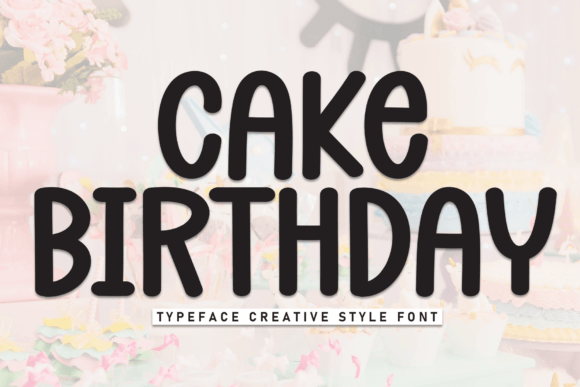
The Ultimate Guide to Cake Birthday Font: A Bold and Playful Display Font
I’ll never forget the time I was working on a birthday party invitation project for a client, and I just couldn’t find the right font to match the festive vibe. The client wanted something bold, fun, and celebratory, but everything I tried seemed either too bland or too over-the-top. That’s when I stumbled upon Cake Birthday, a font that instantly brought the party to my design. In this article, I’ll share my love for this amazing font, its features, and how to make the most of it in your designs.
My Honest Review of Cake Birthday Font
Cake Birthday is a bold, fun display font that’s perfect for making big statements. Here’s what I love about it:
- ✨ Thick and playful letters that give a happy and cheerful feel
- ✅ Perfect for birthday cards, party invitations, and festive designs
- 🎉 Great for headlines and titles that need to grab attention
- 👍 Easy to read and understand, even in large sizes
However, there are a few small quirks to keep in mind:
- 🤔 Limited use for body text due to its bold nature
- ⚠️ May not be suitable for formal or professional designs
- Experiment with OpenType features like ligatures and stylistic alternates to add more personality to your text
The Story Behind Cake Birthday Font
Cake Birthday was designed by a talented font creator who wanted to capture the essence of celebration in a font. Inspired by birthday parties and festive decorations, the designer crafted a font that’s both fun and functional. The result is a font that instantly adds a touch of joy to any design.
| What is Cake Birthday font best used for? | Cake Birthday is perfect for birthday cards, party invitations, and festive designs that need a bold and playful touch. |
| Is Cake Birthday font suitable for body text? | No, Cake Birthday is a display font and may not be suitable for body text due to its bold nature. |
| Does Cake Birthday font support OpenType features? | Yes, Cake Birthday supports OpenType features like ligatures and stylistic alternates to add more personality to your text. |